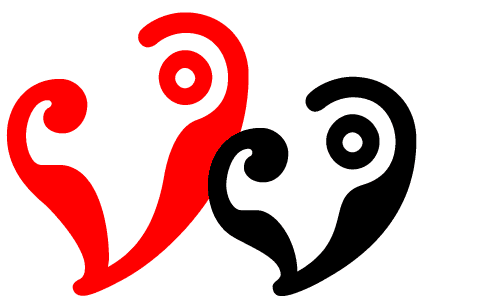
with our concerns, were here to fill a space in our hearts.
The Bay Area can be awash in high prices and broken dreams. The
Emerald City, once home of eternal rebellion and romance, forces
one to locate the inner grown-up. This valentine to Northern California
is a V-for-victory over our expectations. Chins up!